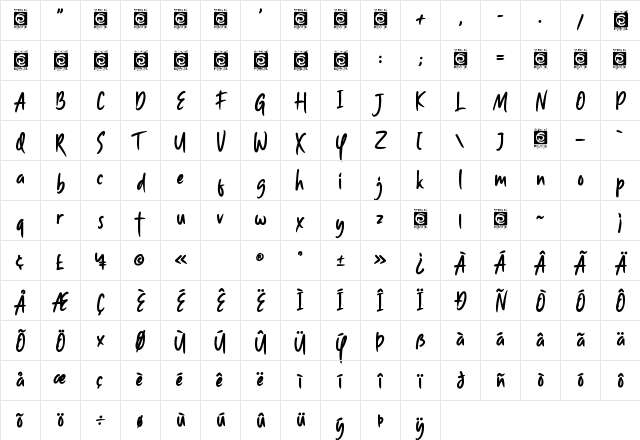
Smooth Butter Regular Free Font
Smooth Butter Regular
Foundry: Putracetol Studio, Karanganyar.
Designer: Putra Novembria Candra Kusuma
Design Context for Smooth Butter
Smooth Butter is a composed and adaptable typeface that performs quietly and consistently across a wide range of design contexts.